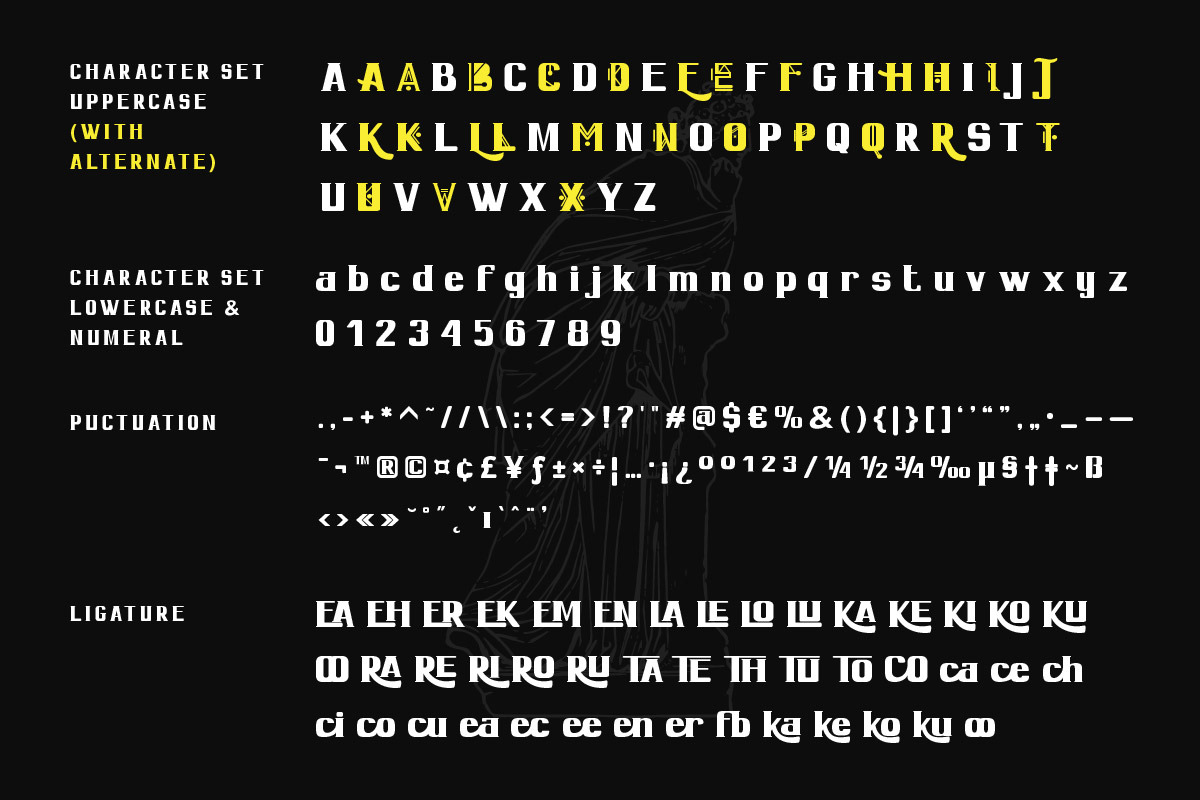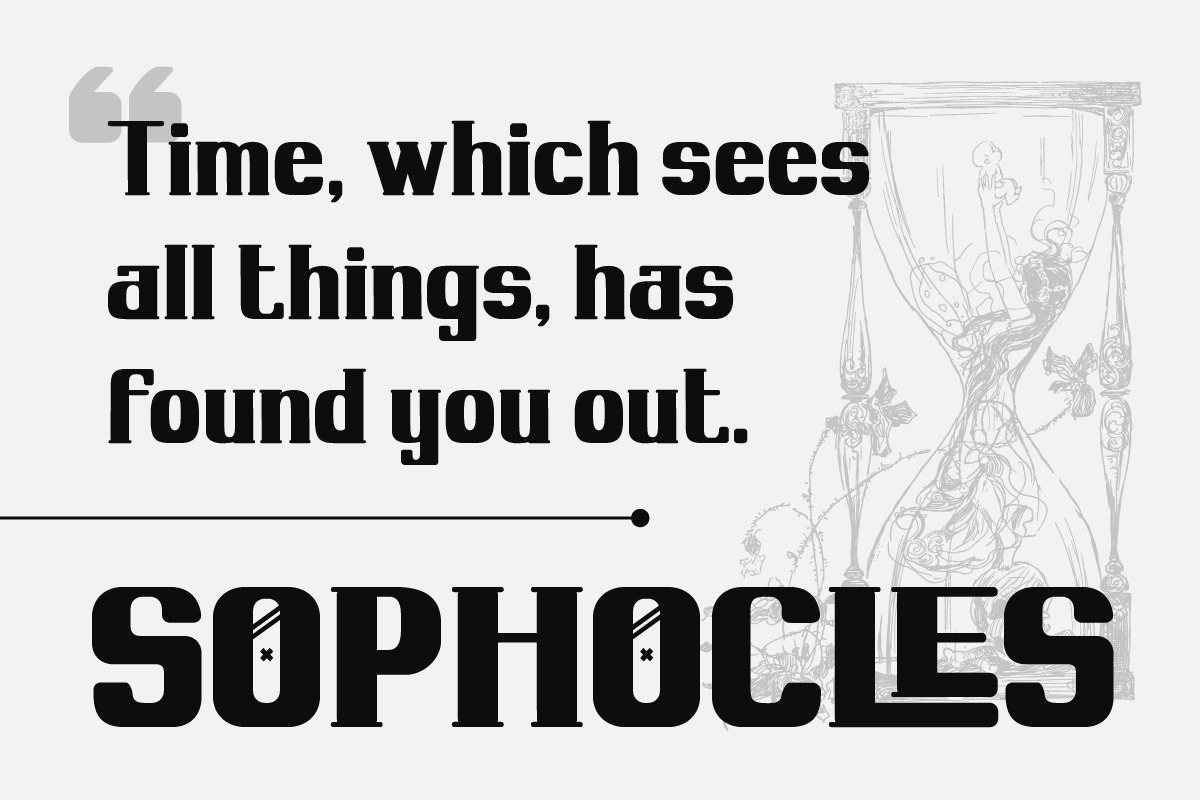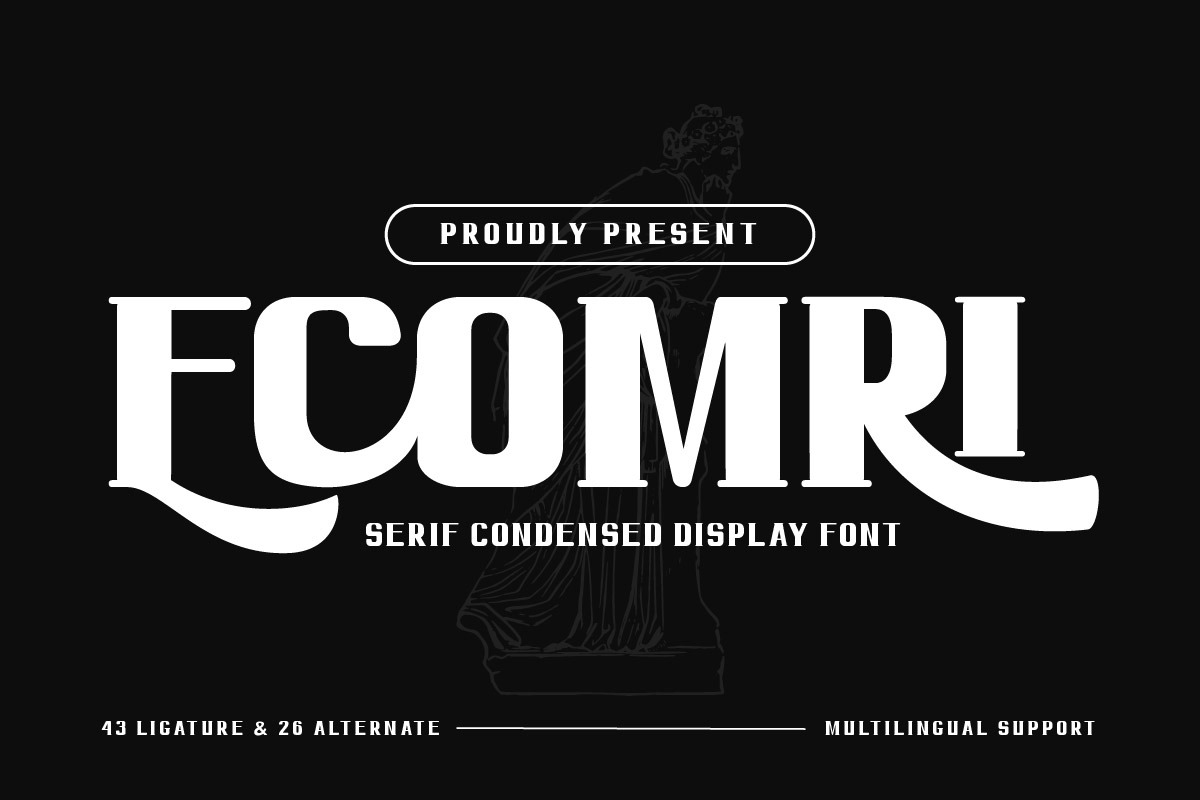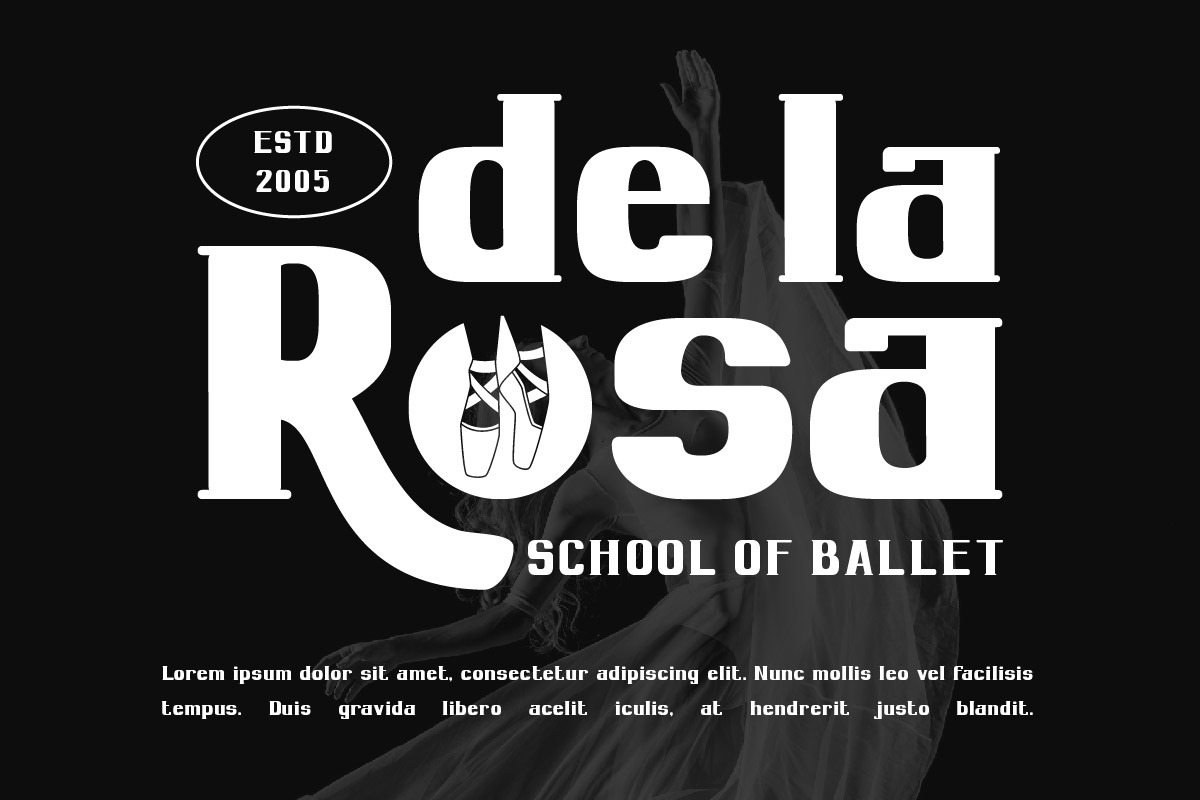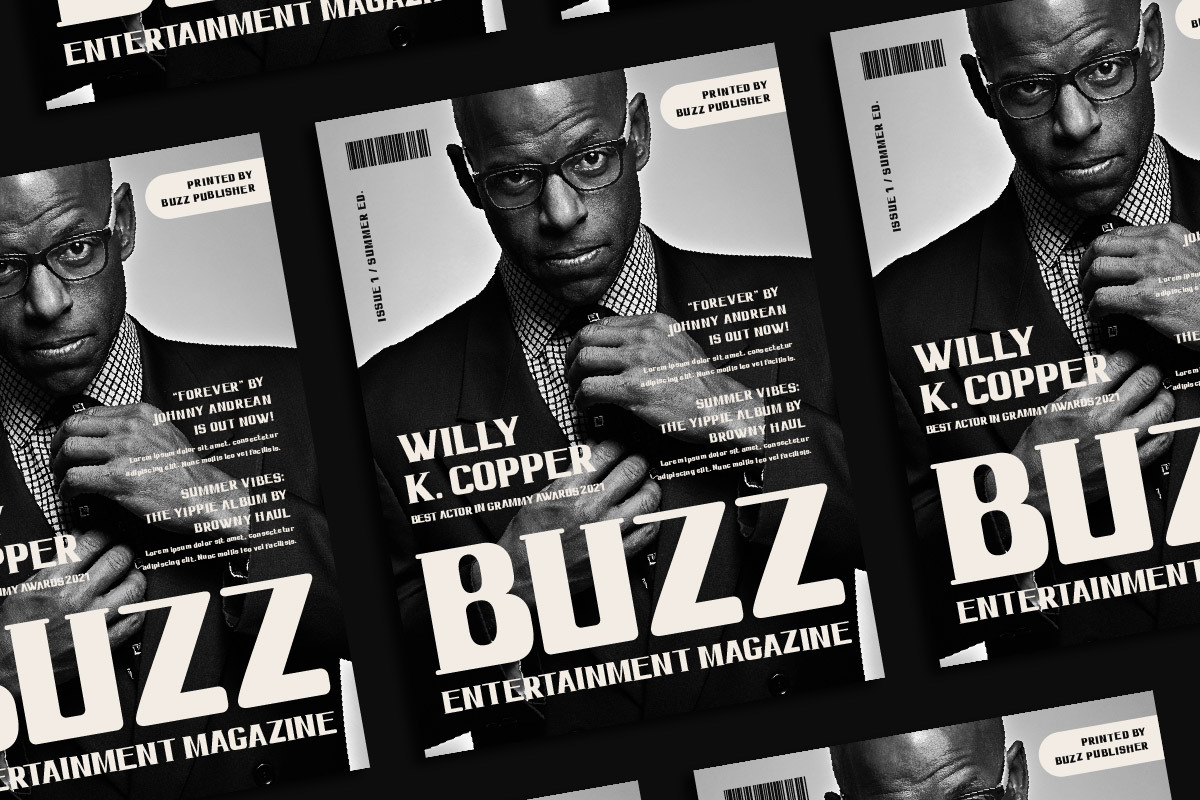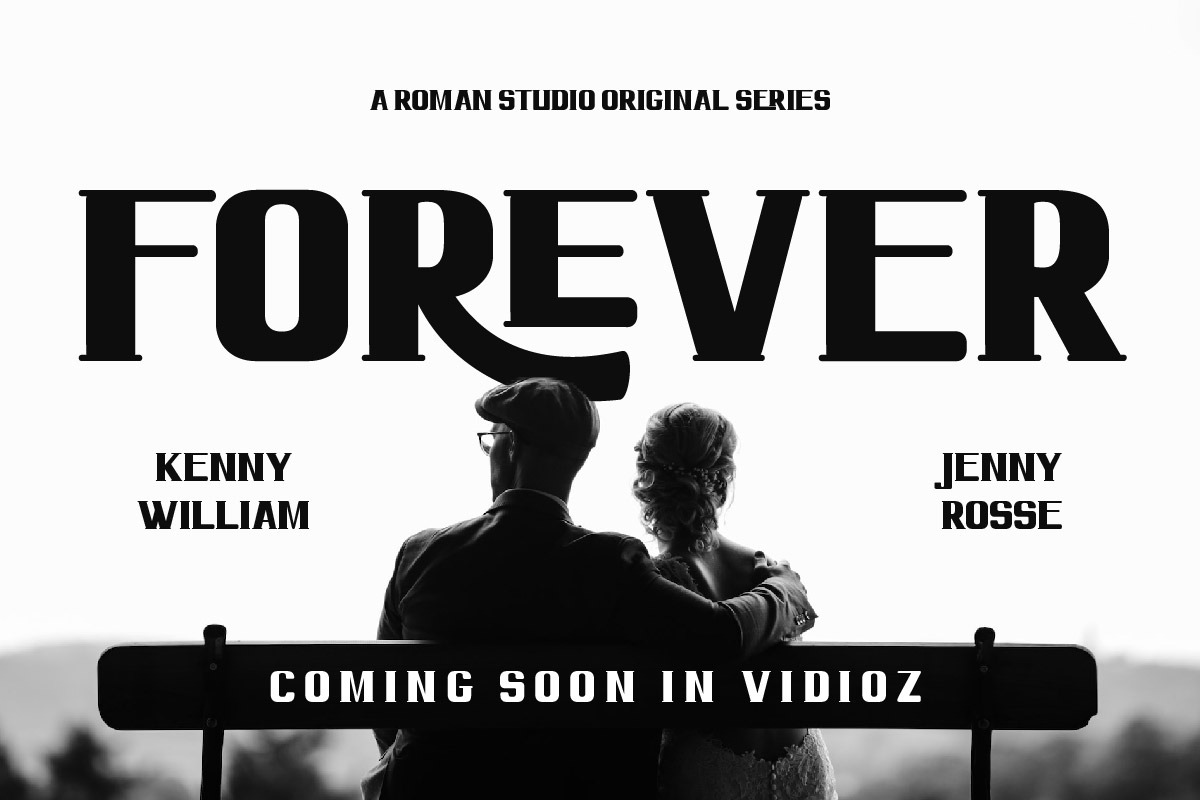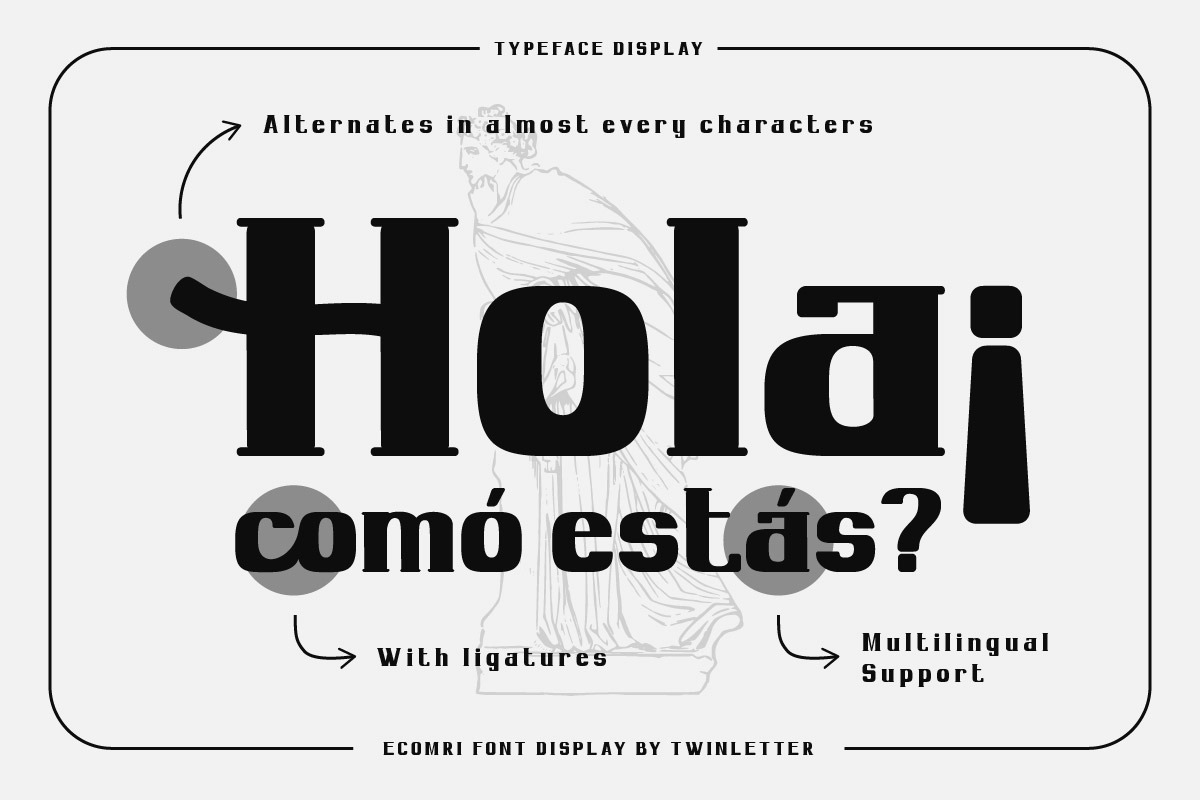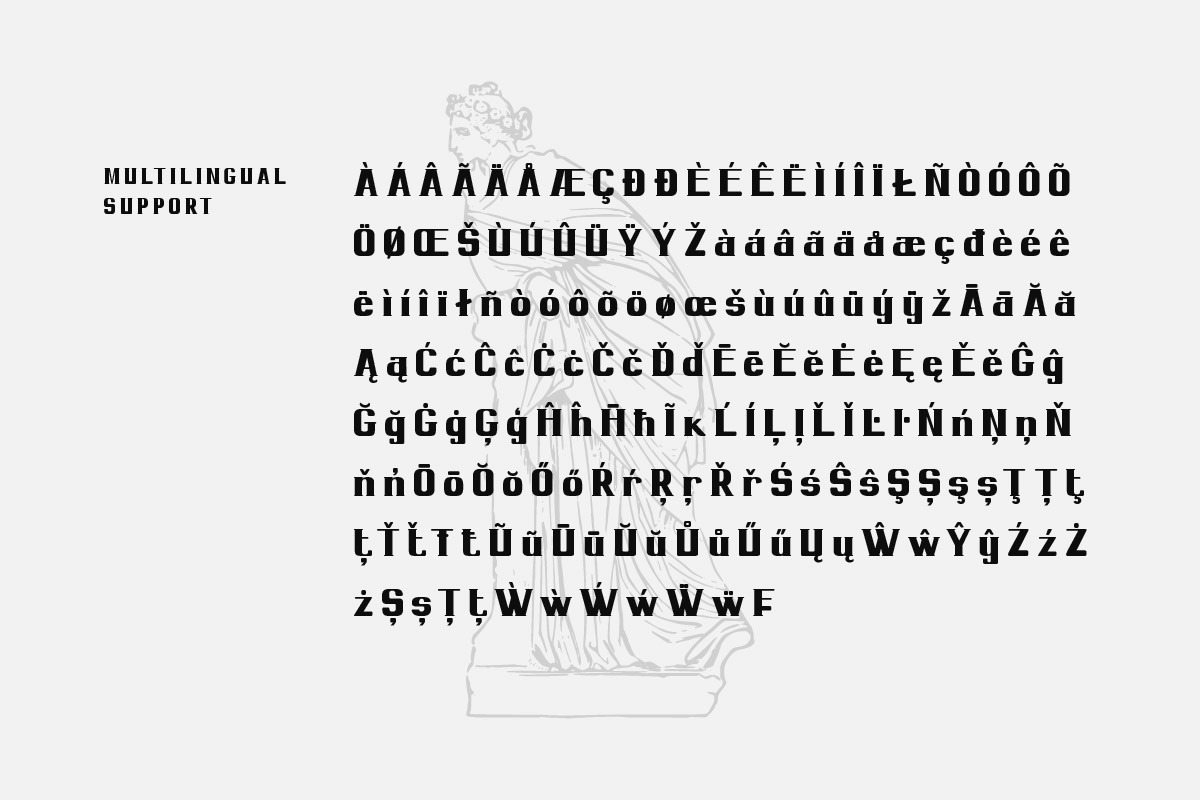
Ecomri - Serif Condensed Font
Ecomri is a serif condensed font that is sleek, modern, and designed to make an impact. Its slim, elongated characters are perfect for those designs where space is at a premium, but impact is still important. Whether you’re creating a stylish headline for a magazine or crafting compact body text for a mobile app, Ecomri delivers a clean, contemporary vibe that is sure to impress.
- Fonts include Multilingual: Support for 85 languages. Afrikaans, Albanian, Asu, Basque, Bemba, Bena, Breton, Catalan, Chiga, Cornish, Croatian, Czech, Danish, Dutch, Embu, English, Esperanto, Estonian, Filipino, Finnish, French, Friulian, Galician, Gusii, Hungarian, Indonesian, Irish, Italian, Kabuverdianu, Kalenjin, Kamba, Kikuyu, Kinyarwanda, Latvian, Lithuanian, Lower, Sorbian, Luo, Luxembourgish, Luyia, Machame, Makhuwa-Meetto, Makonde, Malagasy, Maltese, Manx, Meru, Morisyen, North, Ndebele, Norwegian Bokmål, Norwegian Nynorsk, Nyankole, Oromo, Polish, Portuguese, Quechua, Romanian, Romansh, Rombo, Rundi, Rwa, Samburu, Sango, Sangu, Scottish, Gaelic, Sena, Serbian, Shambala, Shona, Slovak, Slovenian, Soga, Somali, Spanish, Swahili, Swedish, Swiss German, Taita, Teso, Turkish, Upper Sorbian, Uzbek (Latin), Volapük, Vunjo, Walser, Zulu.